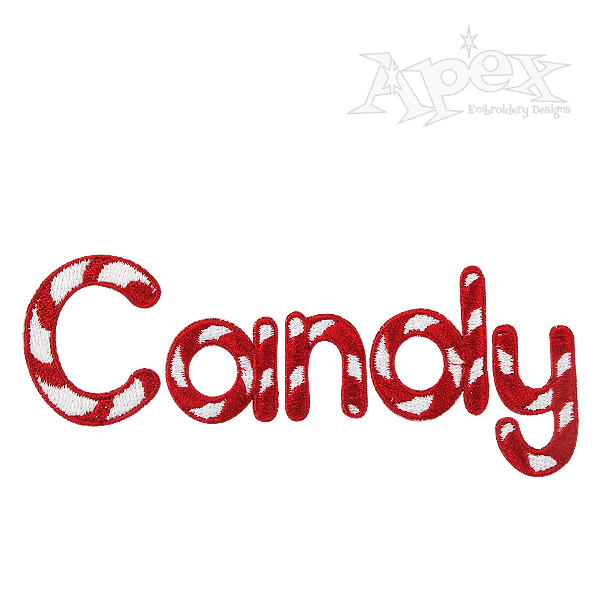
Casual Embroidery font with candy Christmas designs
Casual Embroidery Font with peppermint Christmas design. Casual Font is great for any day! Nice underlay and density, very BOLD font nice and thick. The Candy designs are a bunch of different sizes with fill and non fill. Size of font: 2" and 1" set and different size mints to add.